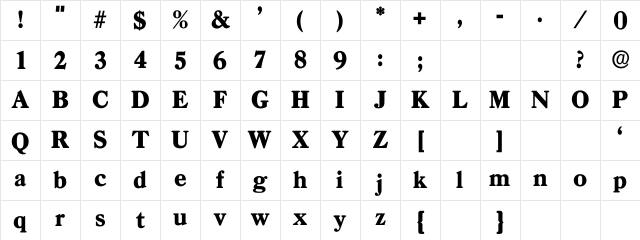
BunionBold Regular
Design Context for BunionBold
BunionBold is a composed and adaptable typeface that performs quietly and consistently across a wide range of design contexts. Its bold stroke weight gives it real presence on the page.